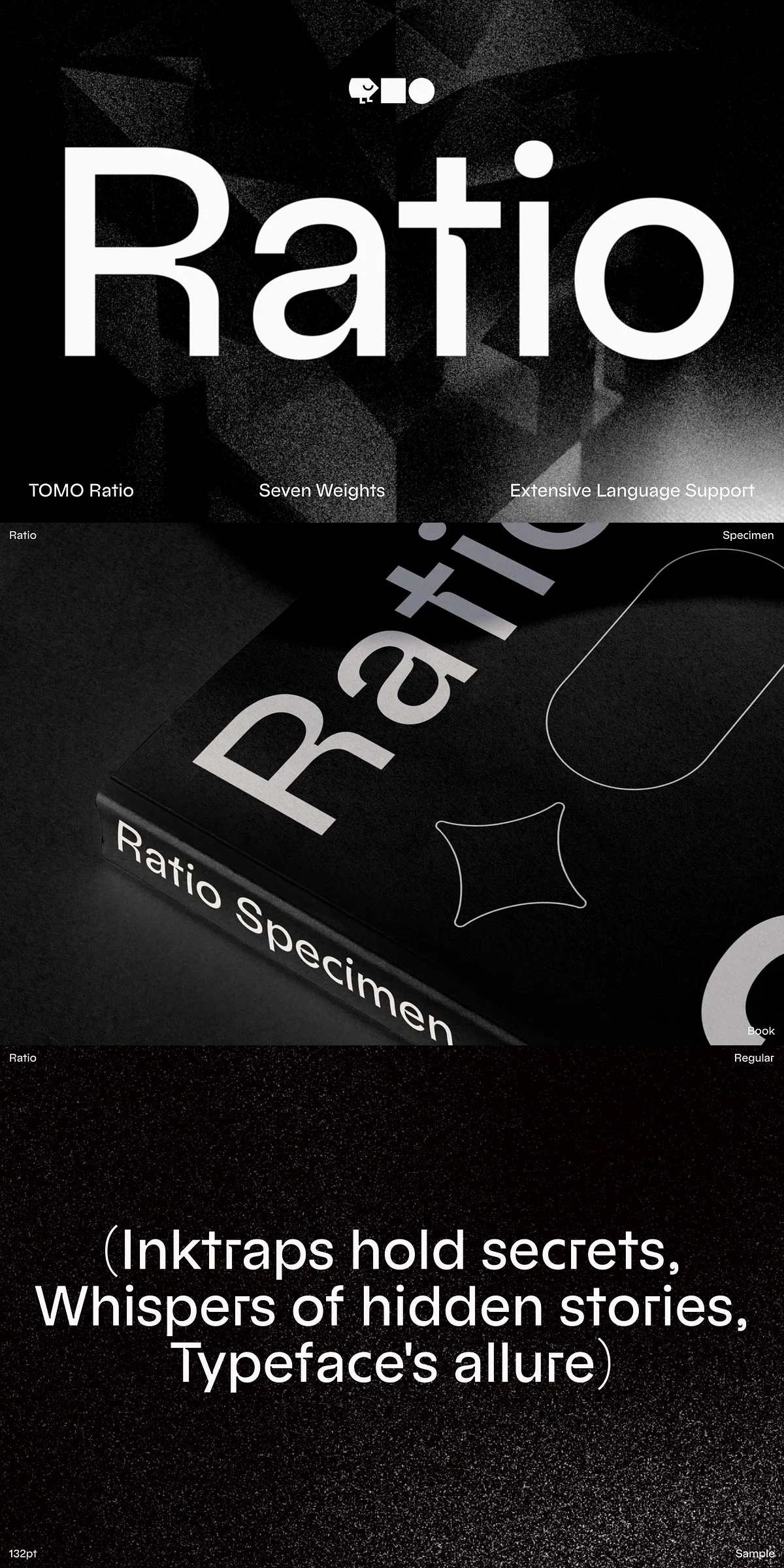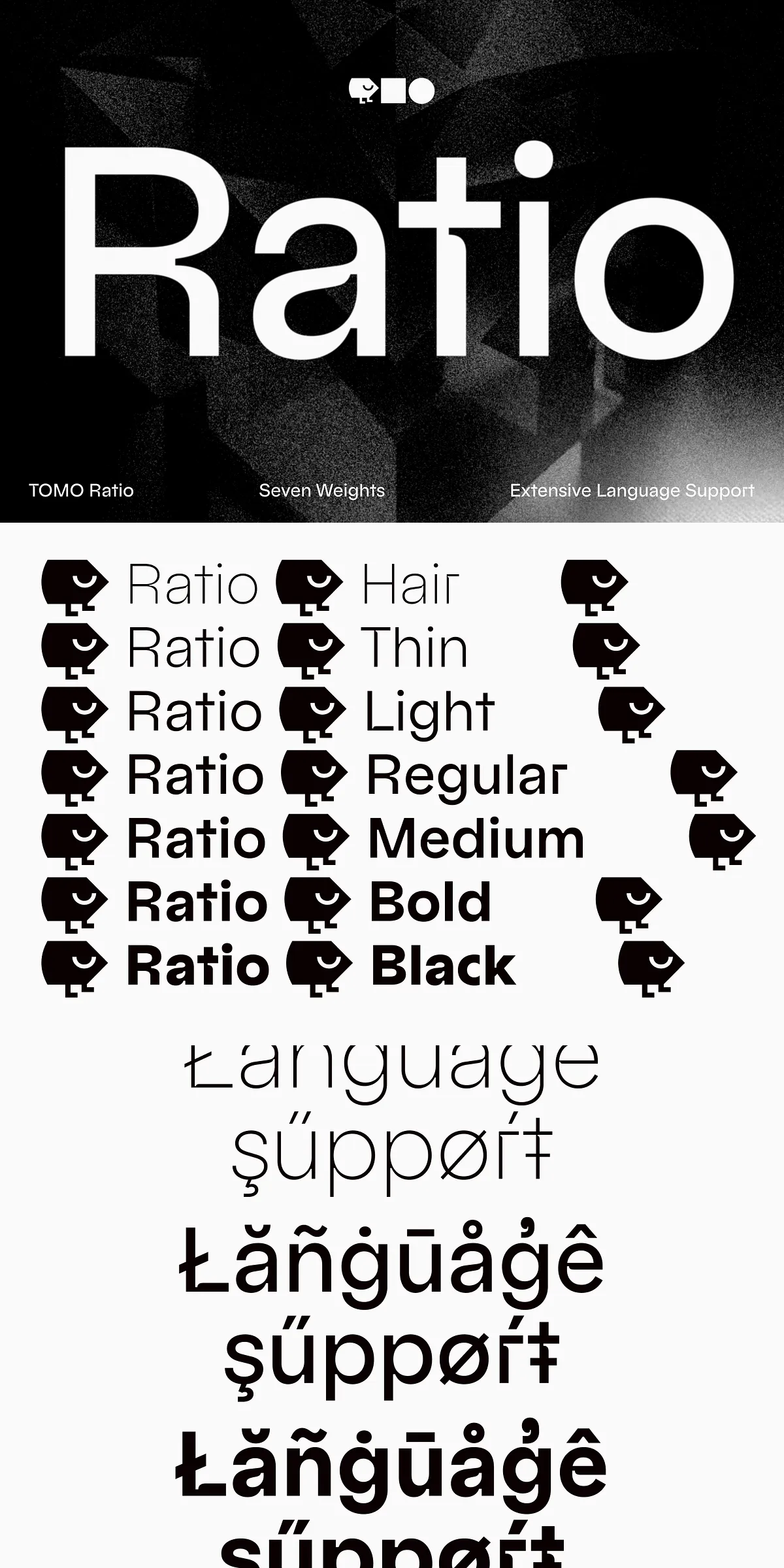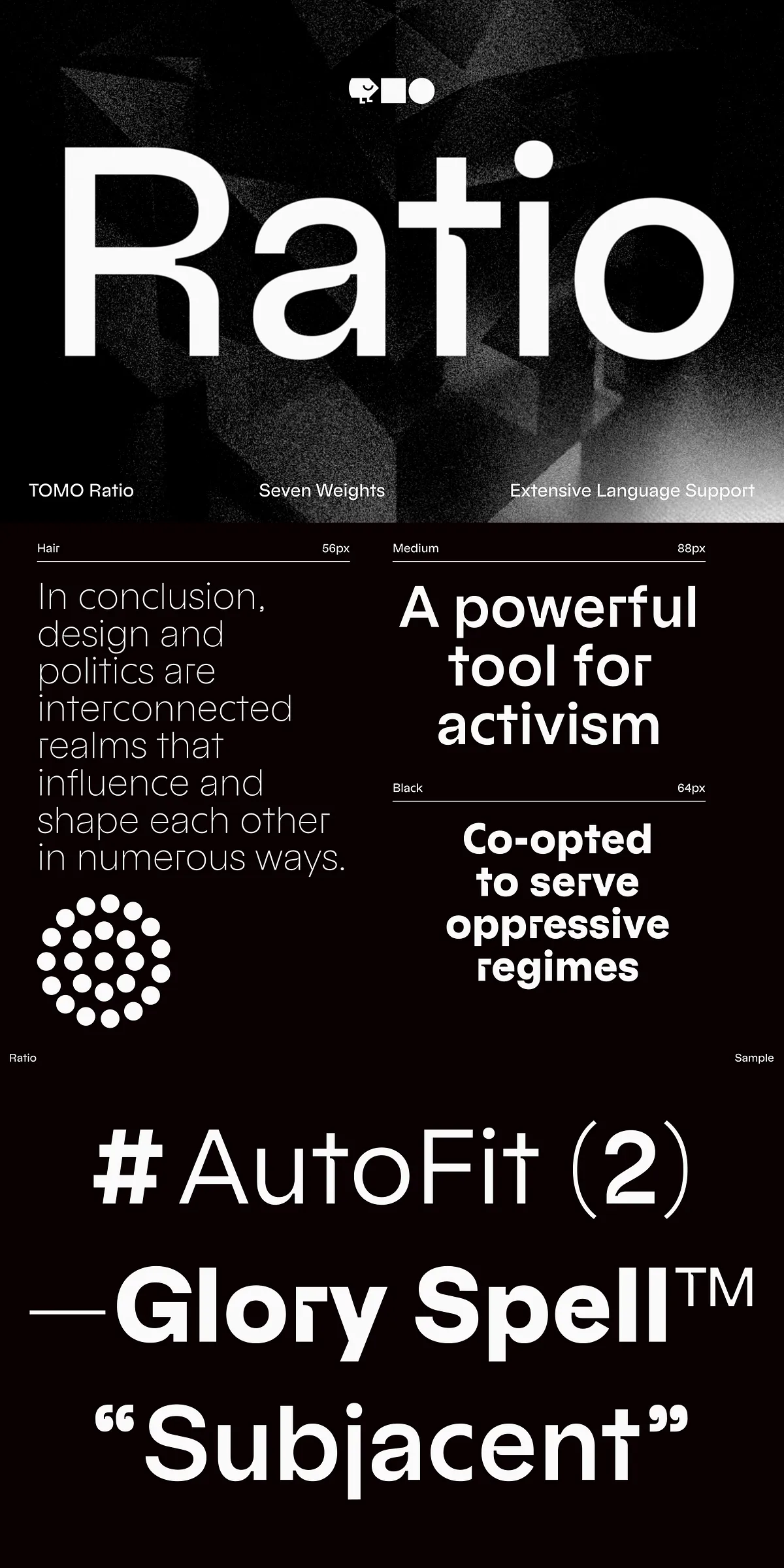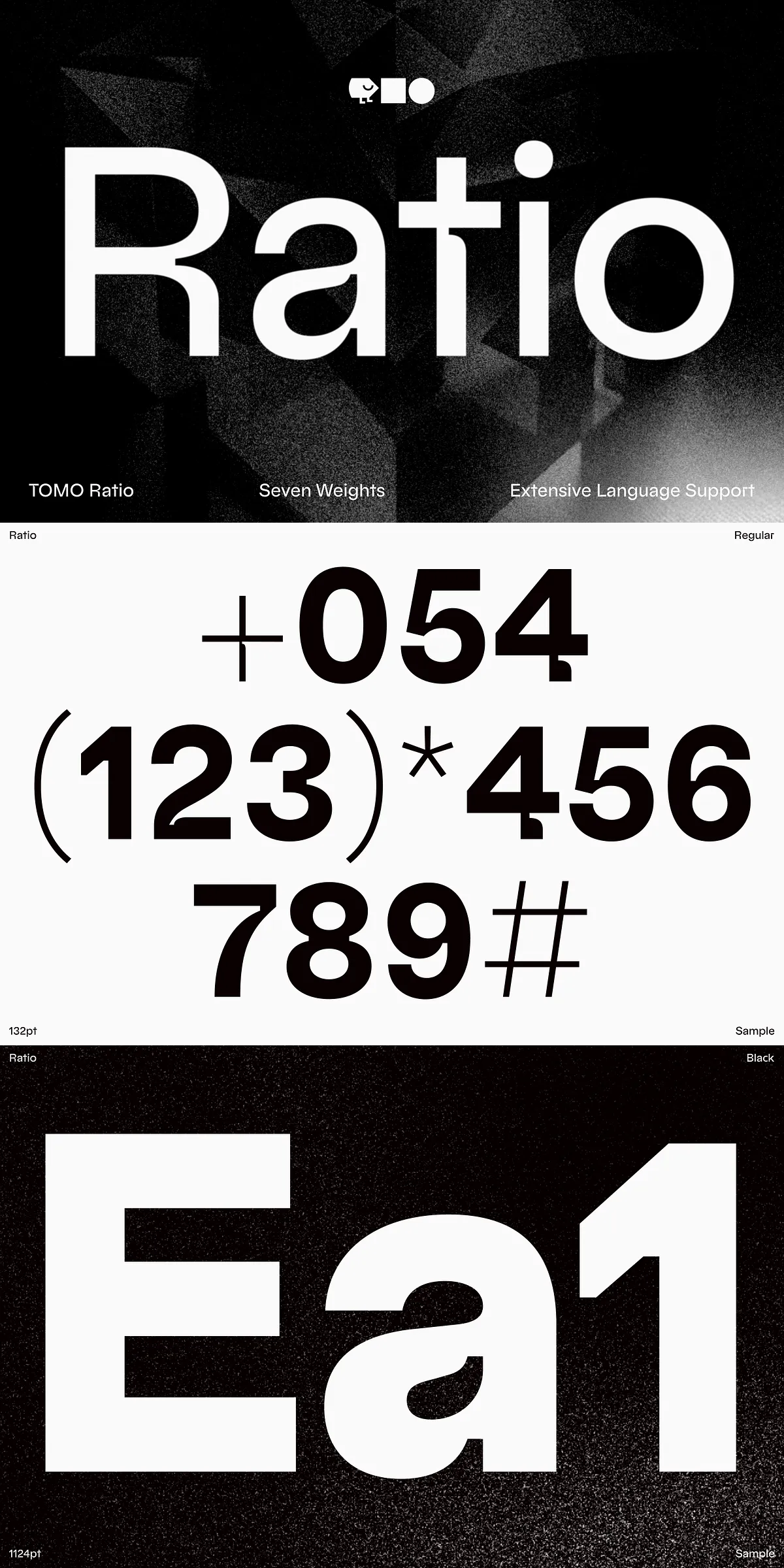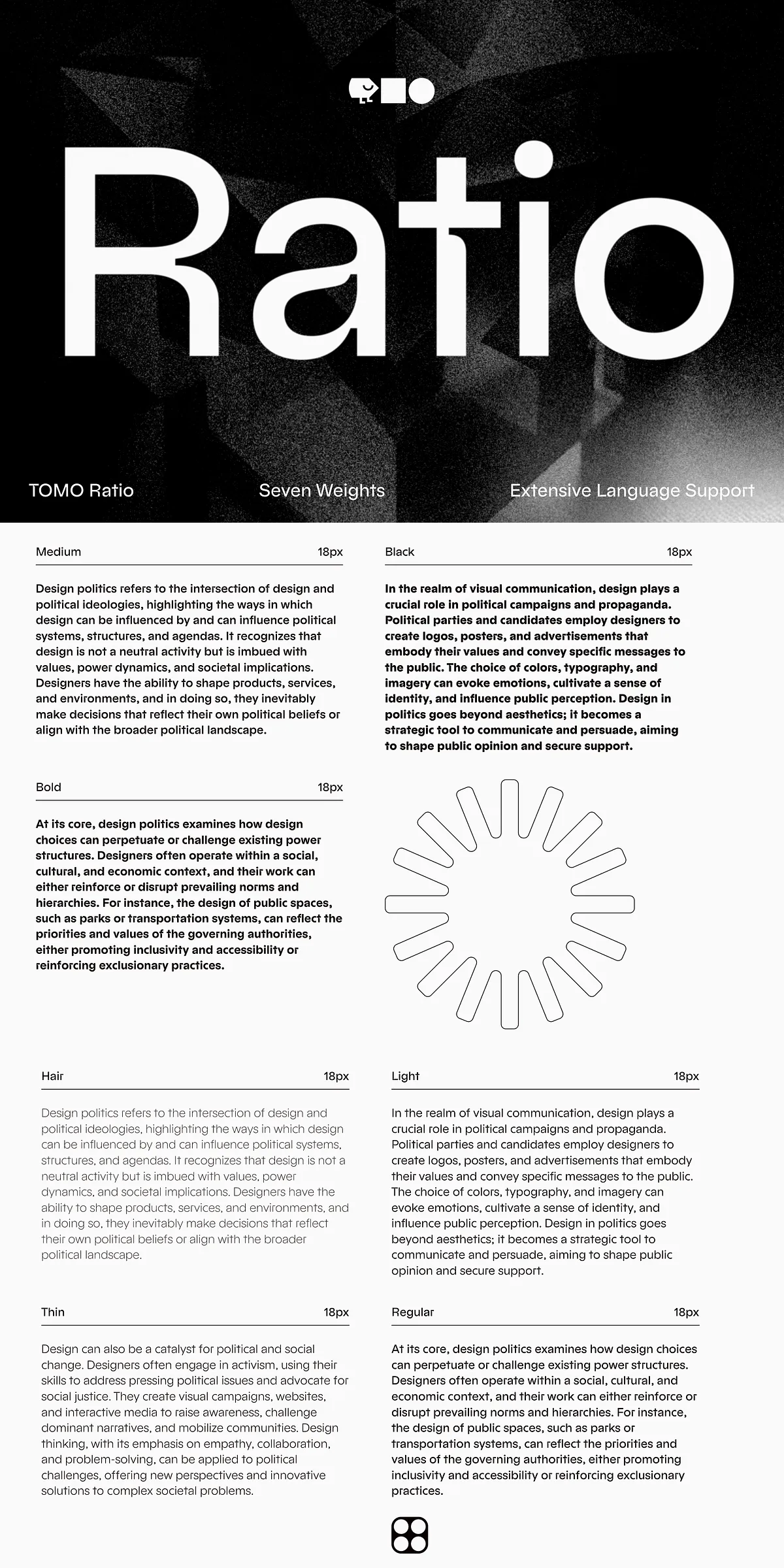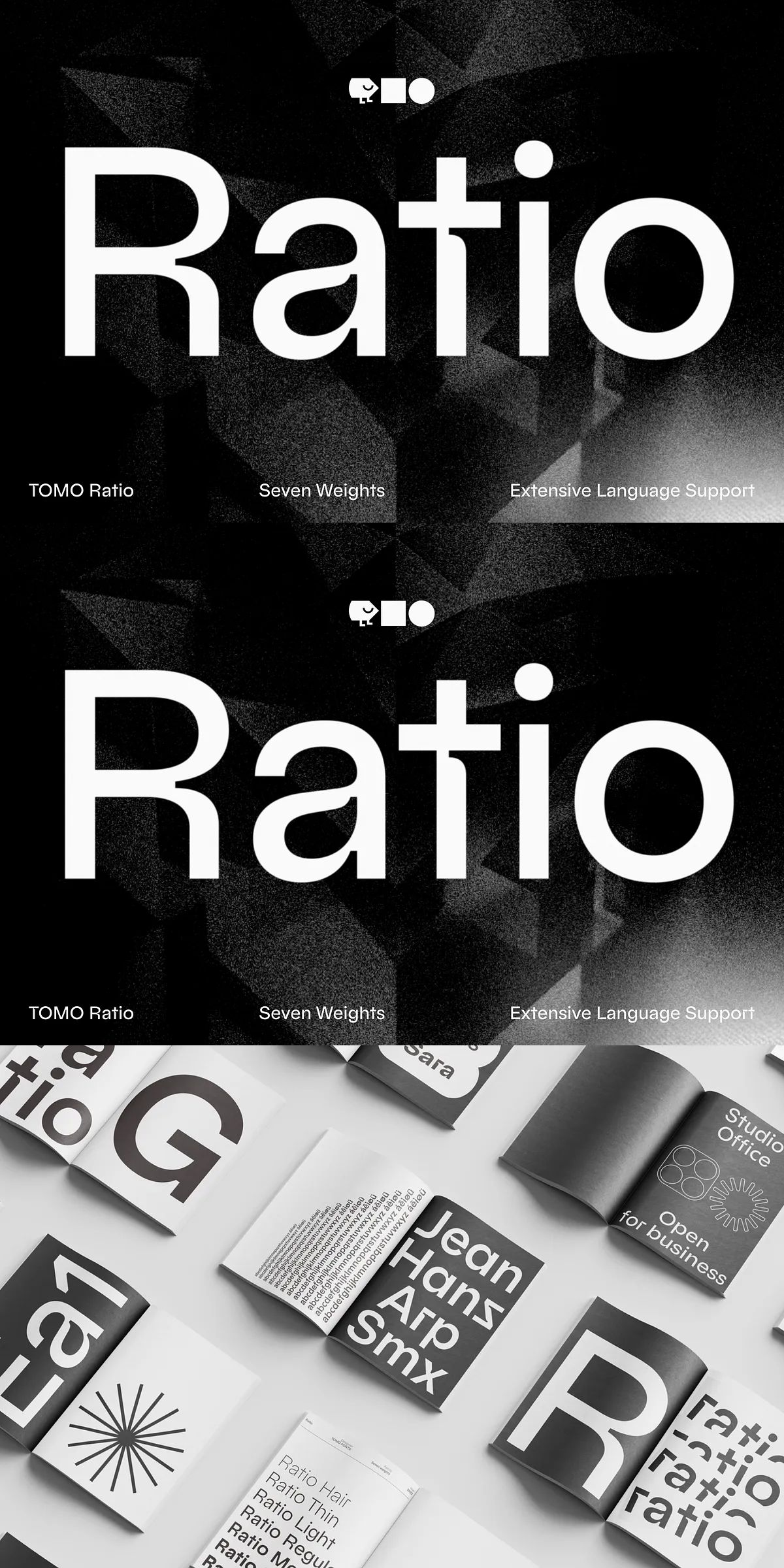
Step into the future of type design with TOMO Ratio, a meticulously crafted font that redefines the intersection of classic and modern aesthetics. Rooted in the enduring principles of mid-century modernism and infused with the geometric clarity of the Bauhaus movement, TOMO Ratio brings a bold reinterpretation of form, space, and rhythm. Inspired by the minimalist grace of Futura’s lowercase anatomy and the expressive depth of refined inktraps, this typeface delivers a harmonious fusion of heritage and innovation—perfect for designers who value both structure and soul in their typography.
Seven Weights, Infinite Possibilities: Design with Dynamic Range
Constructed with a comprehensive 7-weight family, TOMO Ratio empowers designers to build rich typographic hierarchies with effortless consistency:
- Light and Thin – Ideal for elegant headlines, editorial layouts, and subtle emphasis in branding.
- Regular and Medium – The workhorses of clean, professional communication across corporate documents, web interfaces, and print media.
- Semi-Bold and Bold – Command attention in headlines, signage, and digital banners with strong visual impact.
- Extra-Bold – Perfect for striking logos, cover designs, and large-scale display typography that demands presence.
Each weight maintains the same balanced proportions, seamless stroke transitions, and refined inktrap optimization, ensuring cohesive visual storytelling across all applications.
Inktrap Mastery: Elevating Form Through Intentional Negative Space
TOMO Ratio doesn’t just incorporate inktraps—it celebrates them. Every curved and diagonal stroke is strategically designed to capture ink in key areas, enhancing legibility and visual rhythm while reinforcing the typeface’s architectural precision:
- Deliberate inktrap shaping at junctions of serifs and diagonal strokes ensures optimal ink absorption without blurring—critical for both print and digital rendering.
- Spurless character design eliminates distracting protrusions, allowing smooth transitions and refined line integrity across every glyph.
- Dynamic contrast control between thick and thin strokes prevents visual fatigue, even in long-form text blocks or dense layouts.
- Improved legibility in small sizes, thanks to enhanced open counters and consistent spacing—ensuring clarity at any scale.
This meticulous attention to detail transforms TOMO Ratio from a mere typeface into a tactile experience—where each letter seems to breathe, pause, and resonate with intention.
OpenType Stylistic Sets: Unlock Hidden Expressiveness
Beyond its foundational design, TOMO Ratio unlocks creative potential through powerful OpenType stylistic sets. These advanced features allow you to dynamically adjust the typeface’s personality without altering the core character shapes:
- Stylistic Set 1 (SS01): Introduce alternative lowercase forms with refined inktrap variations for a more expressive, handcrafted feel.
- Stylistic Set 2 (SS02): Swap in high-contrast terminals and sharper serifs for a more dramatic, modernist presentation.
- Stylistic Set 3 (SS03): Activate subtle ligature options for harmonious word flows in headlines and quotations.
- Stylistic Set 4 (SS04): Enable elegant swash alternatives for select uppercase and lowercase letters—ideal for premium branding and editorial styling.
Designed for Tomorrow’s Brands — Built on Yesterday’s Principles
TOMO Ratio isn’t just a font. It’s a visual philosophy:
- 7 weights, 100+ glyphs, comprehensive multilingual support—including Latin Extended, Greek, and Cyrillic subsets for global projects.
- Variable font support available (in select editions), enabling continuous scaling across weights and optical sizes.
- Extensive OpenType features including old-style numerals, fractions, ligatures, and stylistic alternates.
Whether you’re crafting a luxury fashion brand identity, launching a cutting-edge tech startup, or building a thought-leadership publication, TOMO Ratio delivers a voice that is both timeless and urgent—resonant with history, yet unmistakably forward-looking.
Pioneer Your Narrative: Let TOMO Ratio Speak for Your Vision
Stop choosing fonts that blend in. Start selecting one that commands presence. TOMO Ratio is not a background element—it’s a statement of design intelligence. With its roots in architectural purity, its soul in expressive detail, and its future in open, adaptive technology, this typeface is engineered to elevate every message you create.
Embrace the fusion of form and function. Harness the spirit of Bauhaus. Own the space—digitally and physically—with TOMO Ratio.